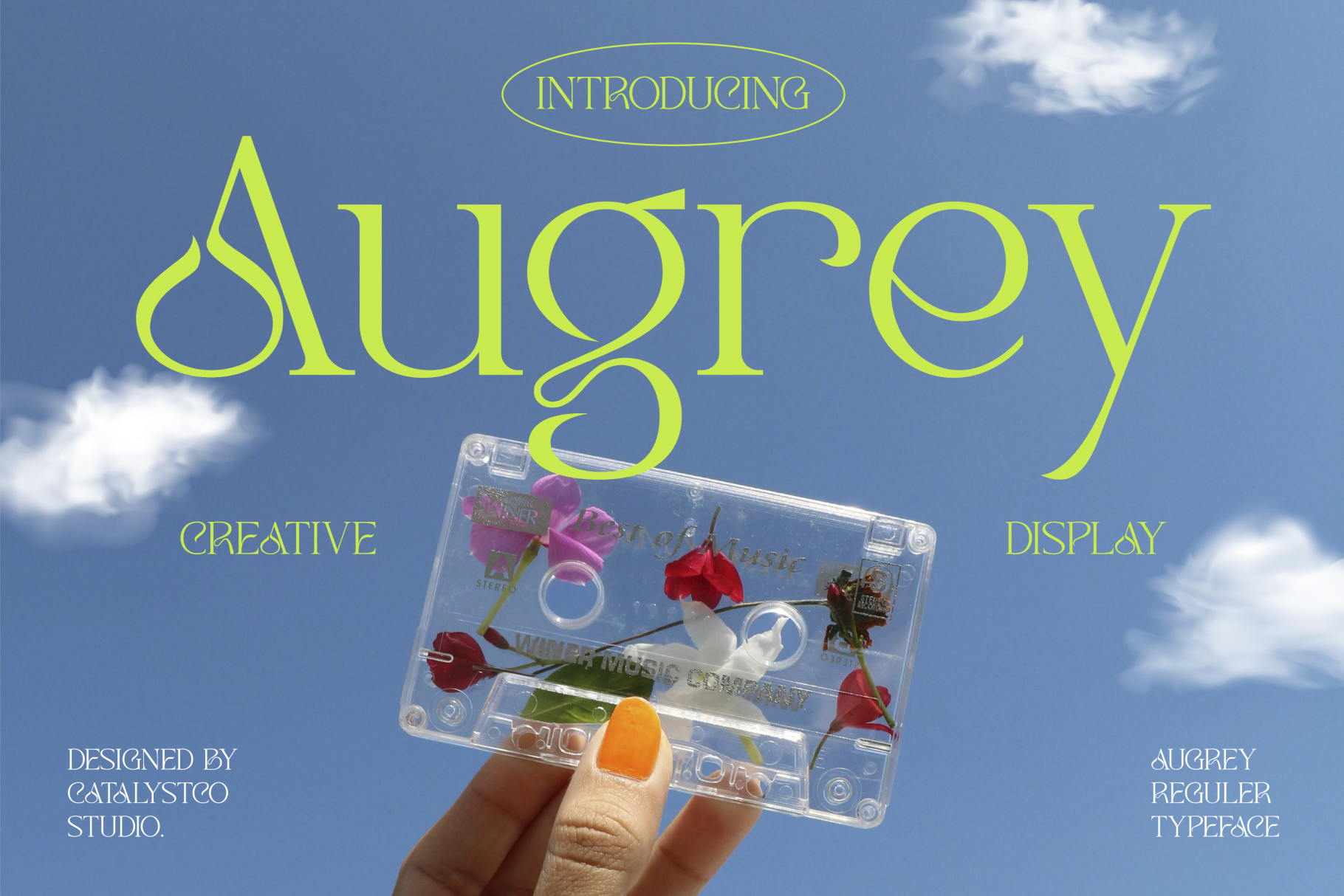
Augrey Creative Display Font
Augrey Creative Display Font typeface excellent used for the manufacture quote text, logotype, header magazine, and many more.